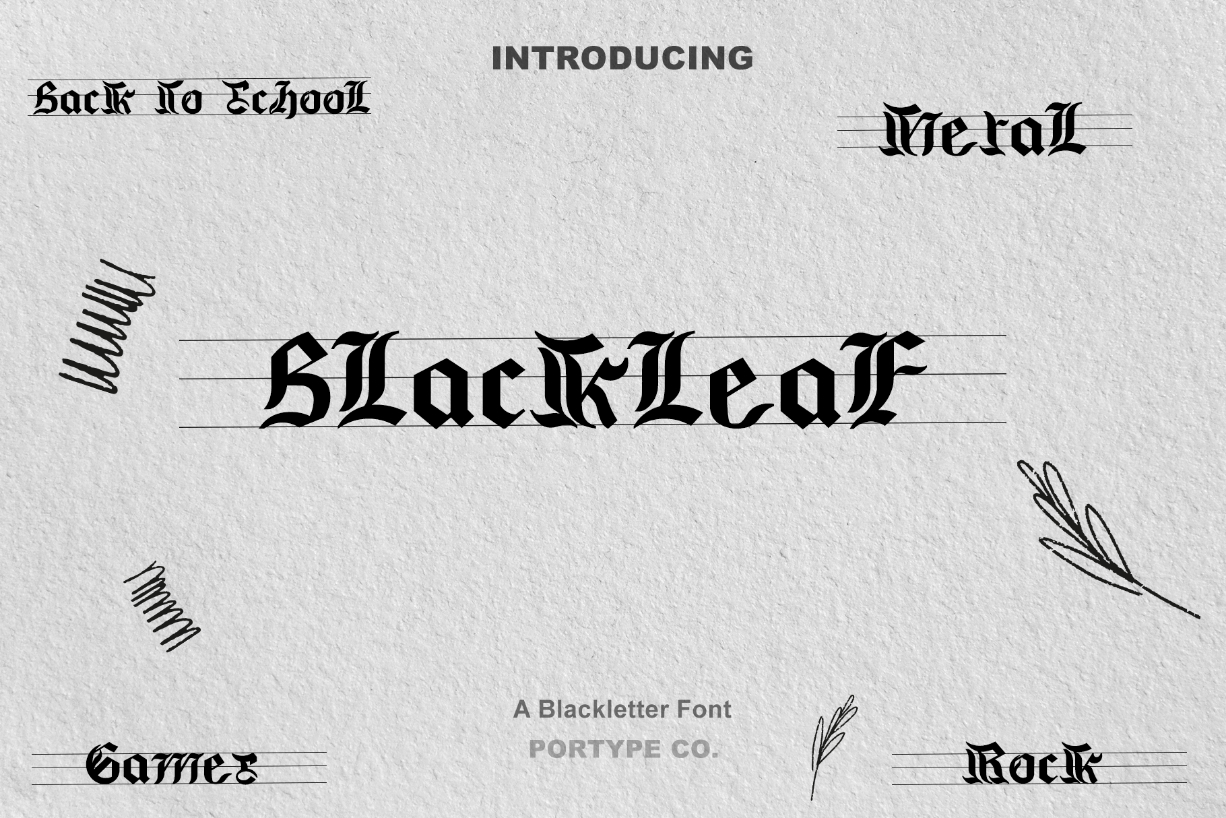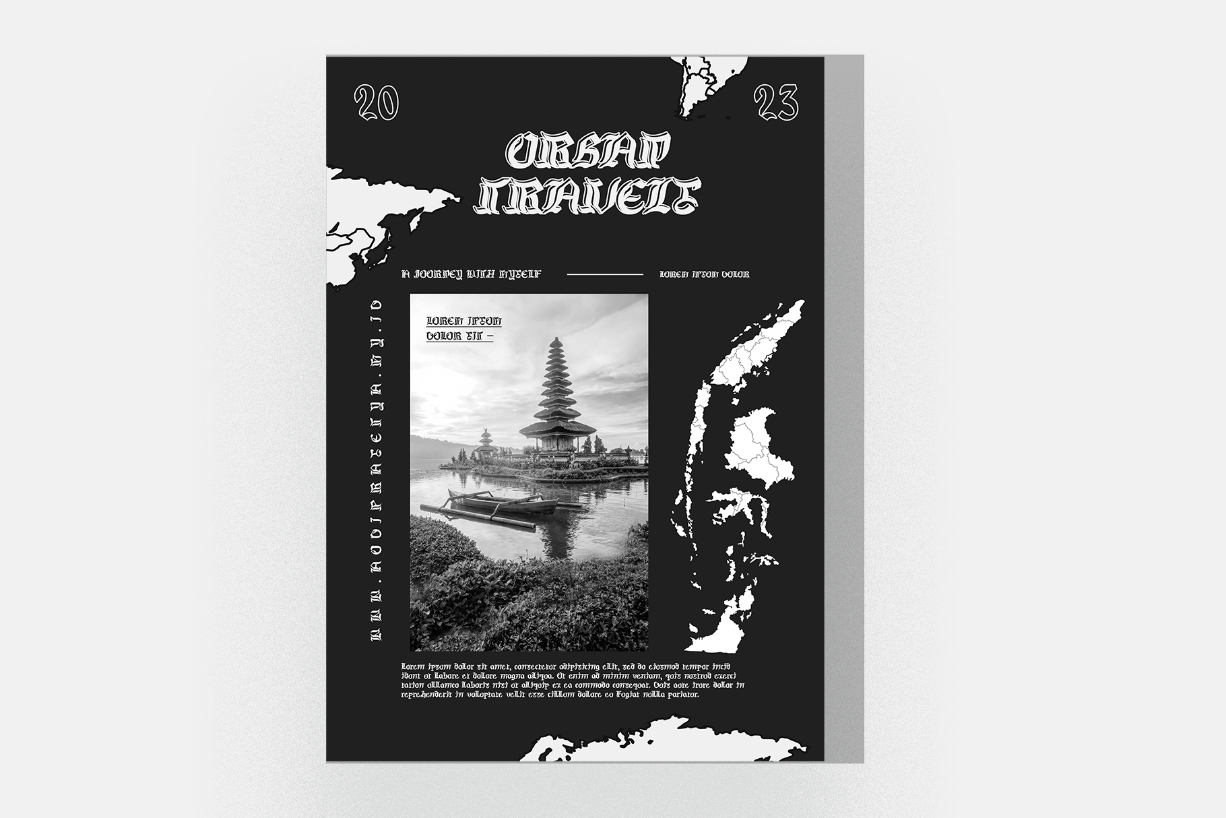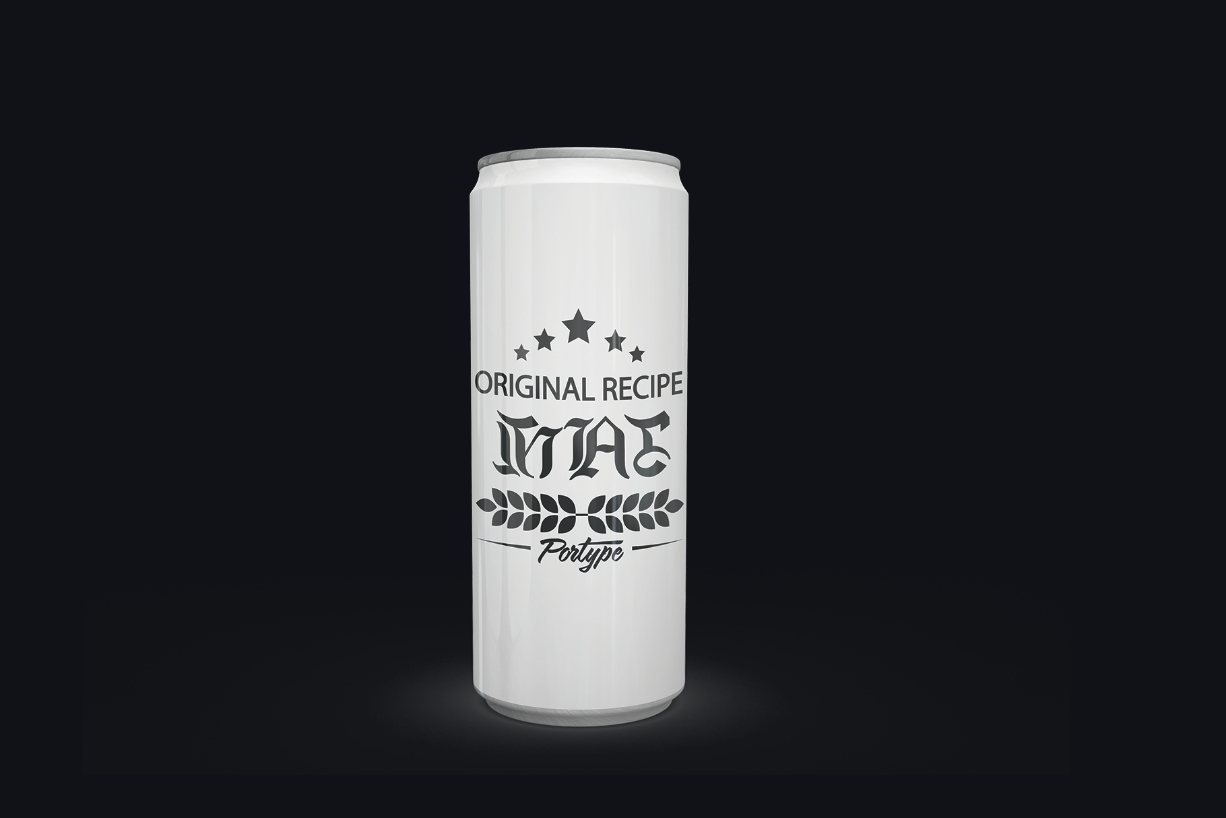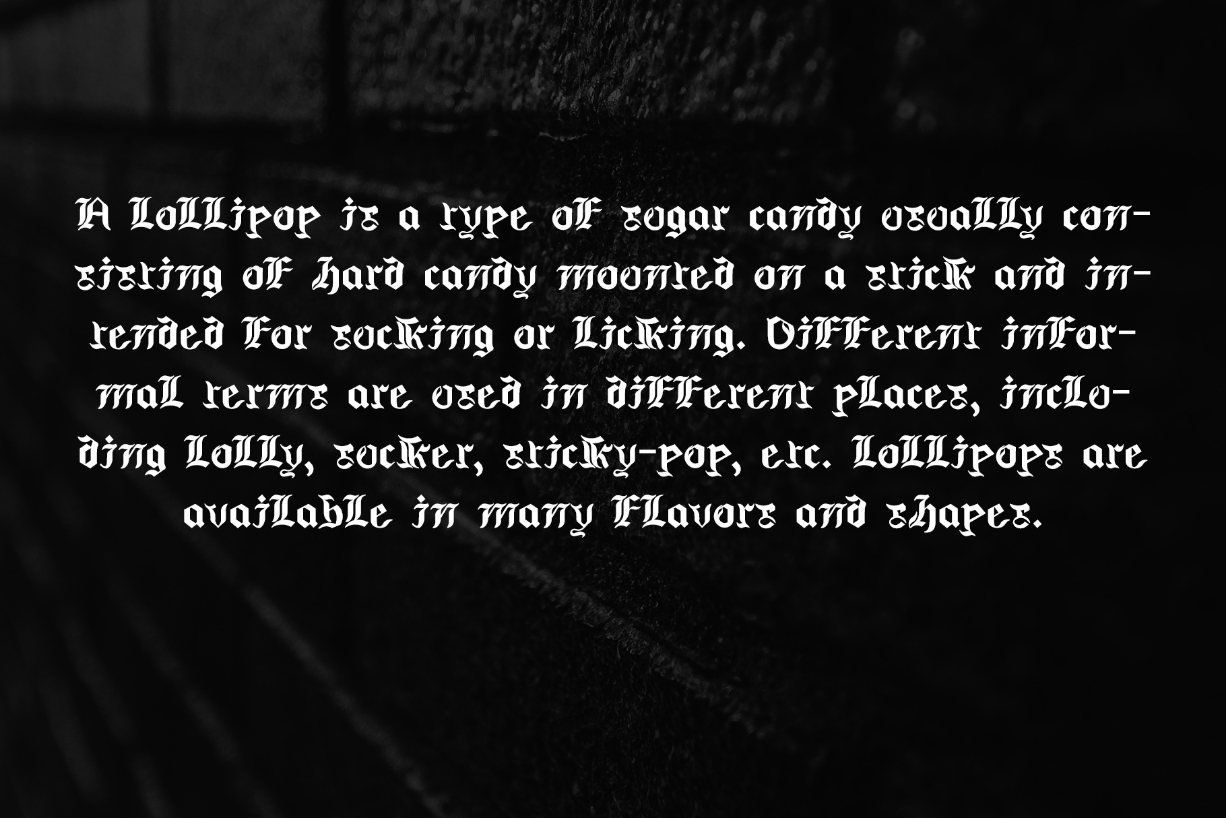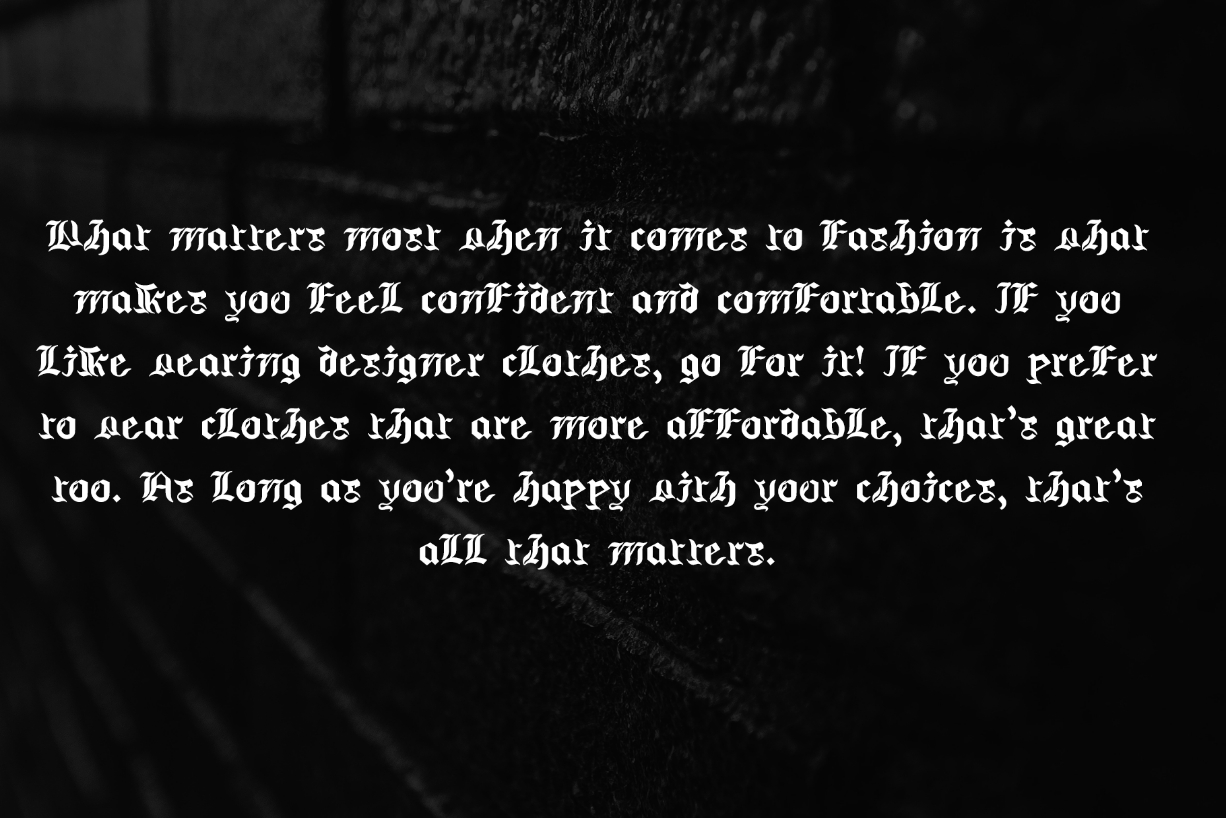
Blackleaf Font
In the vast realm of fonts, Blackleaf emerges as a striking embodiment of gothic design. It embodies the very essence of the Gothic font tradition, carrying with it a sense of mystique and grandeur that has captivated designers and readers alike for centuries.
At first glance, Blackleaf’s distinctive design immediately transports us to the heart of the Gothic era. Its letters are a fusion of sharp, angular strokes and intricate, ornamental details. The Gothic font style itself has roots in medieval Europe, where it was favored by scribes and artisans for its timeless appeal. Blackleaf pays homage to this tradition, offering a tangible connection to a bygone era.
One of the most defining characteristics of Blackleaf is its ability to create a sense of dark beauty and sophistication. The bold, solid black strokes of each letter are juxtaposed against the surrounding white space, creating a dramatic contrast that demands attention. This high-contrast aesthetic is further enhanced by the elaborate embellishments and serifs that adorn the letterforms, instilling a sense of elegance and grandeur.
Despite its strong historical ties, Blackleaf remains a versatile choice for contemporary design. It seamlessly blends the timeless allure of Gothic fonts with modern sensibilities. Whether used in branding, invitations, or graphic design, Blackleaf brings a unique sense of character and sophistication to any project.
In a world where sleek, minimalist fonts often take center stage, Blackleaf stands as a testament to the enduring appeal of diversity in typography. When Blackleaf graces a page, it isn’t just a font; it’s an evocation of an era, a celebration of craftsmanship, and an invitation to explore the beauty of Gothic design.